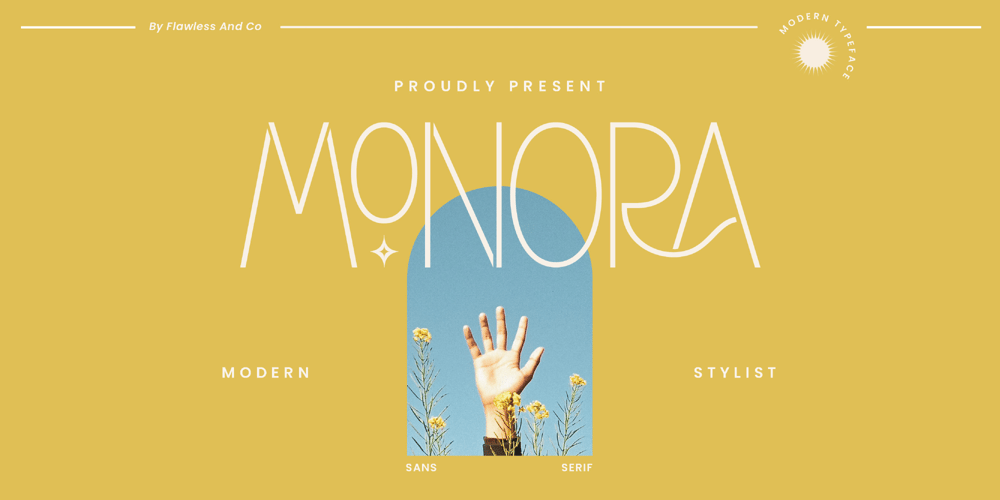
Monora Font Family was designed by Achmad Yani and published by Flawlessandco. Monora contains 1 styles and family package options. Monora is a sleek and modern sans serif font that embodies contemporary design with clean lines and a minimalist aesthetic. There’s some connected letters and some alternates that suitable for any graphic designs such as branding materials, t-shirt, print, business cards, logo, poster, t-shirt, photography, quotes .etcThis font support for some multilingual. Also contains uppercase A-Z and lowercase a-z, alternate character, numbers 0-9, and some punctuation.If you need help, just write me! Thanks so much for checking out my shop!